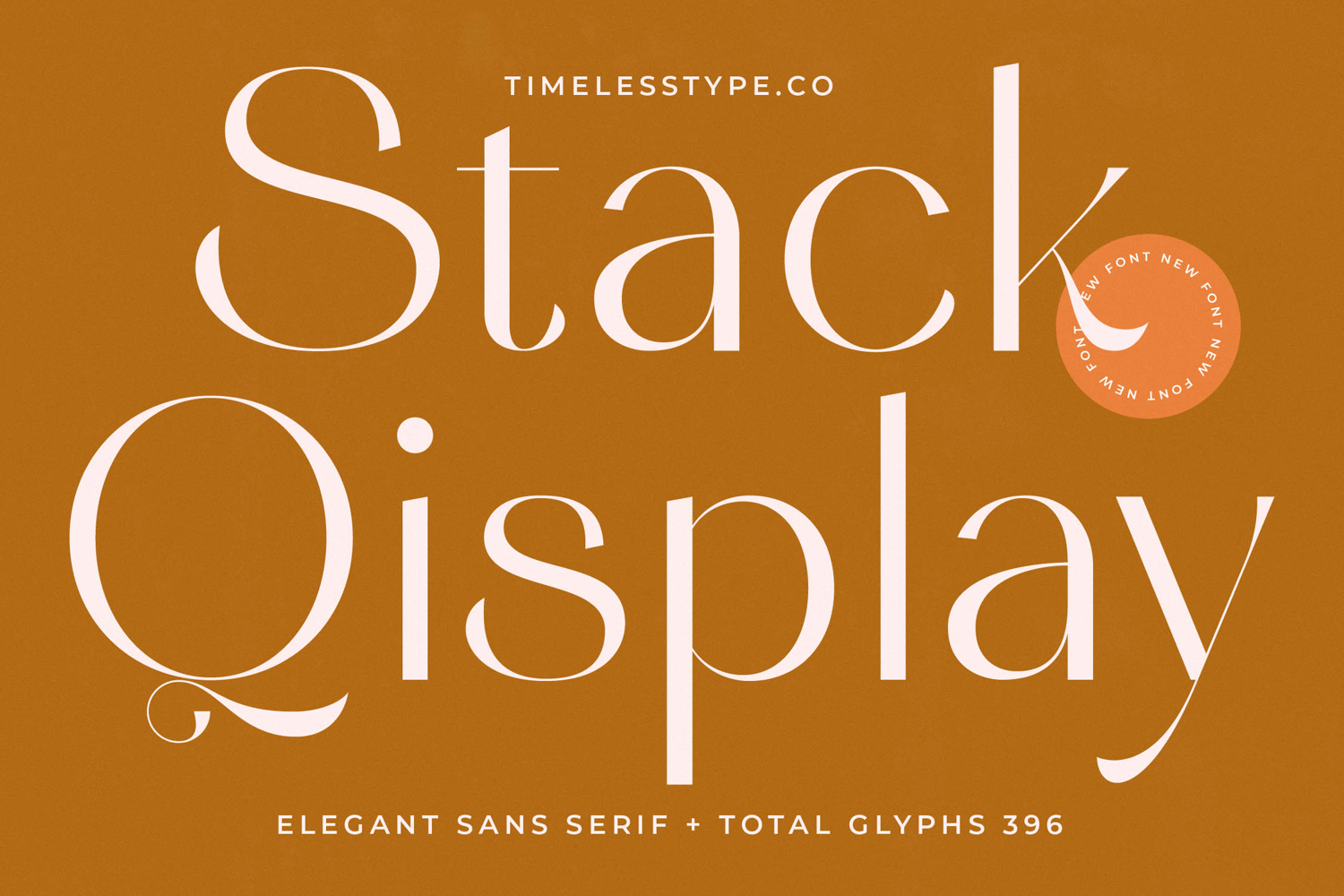
Stack Qisplay - Elegant Sans Serif Font
Elevate your designs with unparalleled sophistication. Introducing Stack Qisplay - Elegant Sans Serif Font, a meticulously crafted typeface that masterfully blends modern minimalism with timeless grace. Its distinctive high-contrast strokes and elegant curves create a captivating visual rhythm, instantly conveying a sense of luxury and refined aesthetics. This font is engineered to make a bold yet understated statement, ensuring your message is perceived with prestige.
Designed for maximum impact and readability at every scale, Stack Qisplay - Elegant Sans Serif Font is the ultimate choice for projects demanding an exquisite touch. It is perfectly suited for luxury branding, high-end editorial layouts, sophisticated packaging, elegant invitations, and impactful headlines. Each unique letterform and subtle flourish commands attention, providing an exclusive and memorable visual experience that resonates with discerning audiences.
Expand your reach with a font engineered for global communication. With its extensive multilingual support, Stack Qisplay - Elegant Sans Serif Font adapts seamlessly across global markets, making it incredibly versatile for international projects. This comprehensive language coverage ensures your brand maintains its distinctive elegant presence, regardless of geographic boundaries, offering a consistent and refined message worldwide.